1. Roraima Serif Free Font
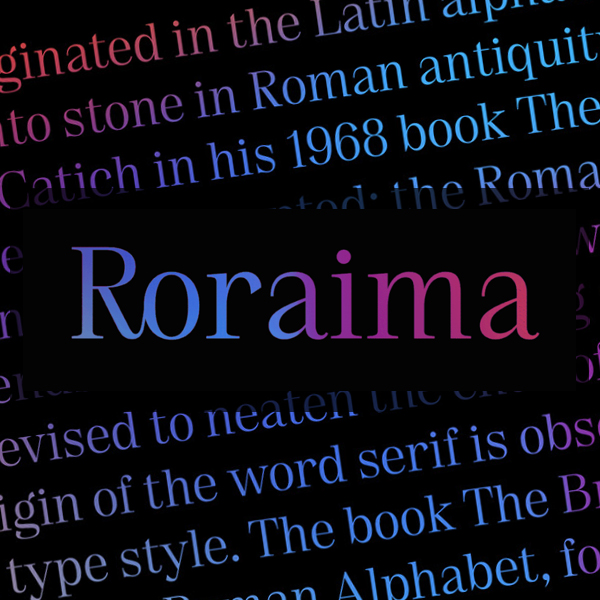
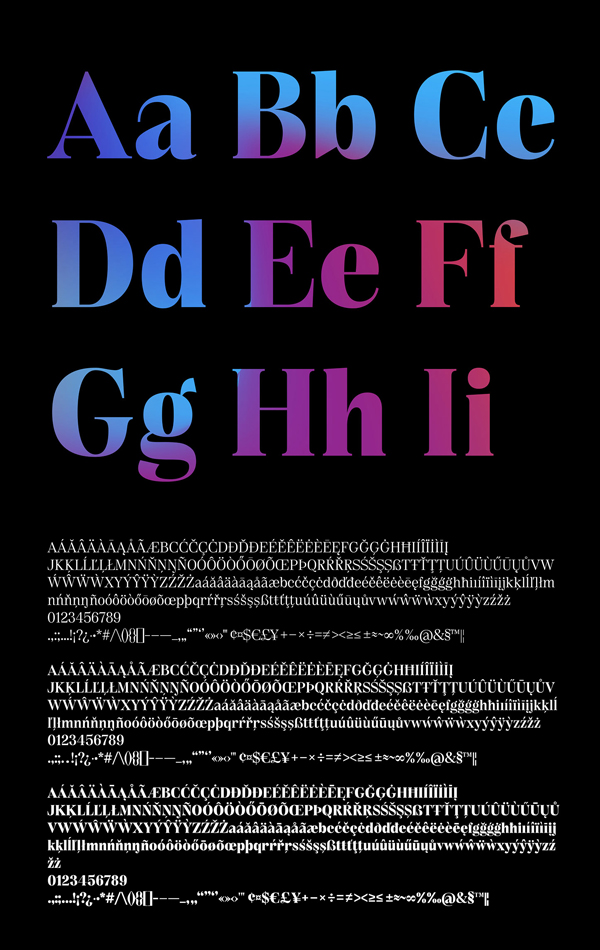
2. Techead Sans Serif Free Font
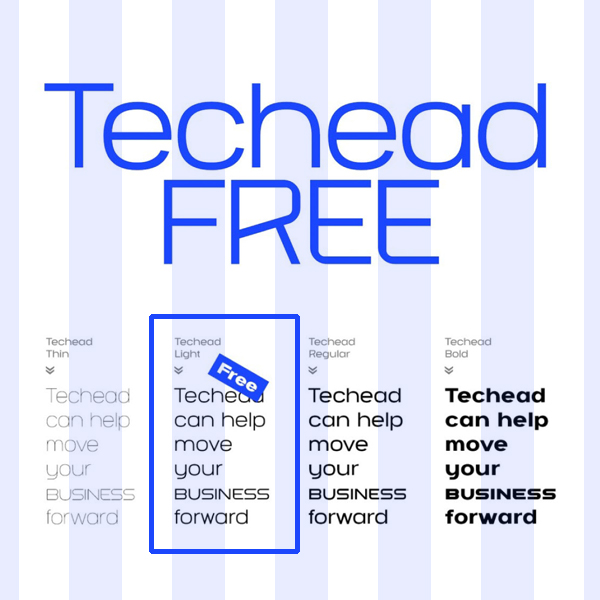
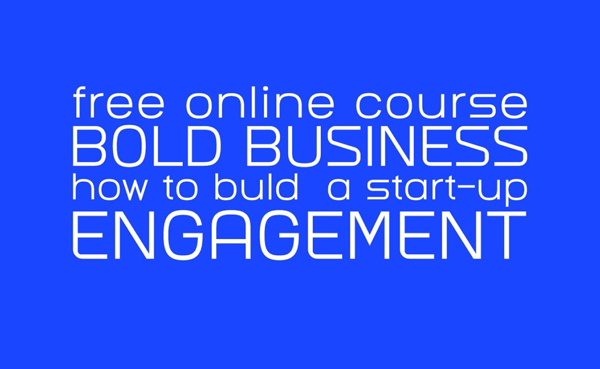
3. Perfect Moment Handwritten Free Font
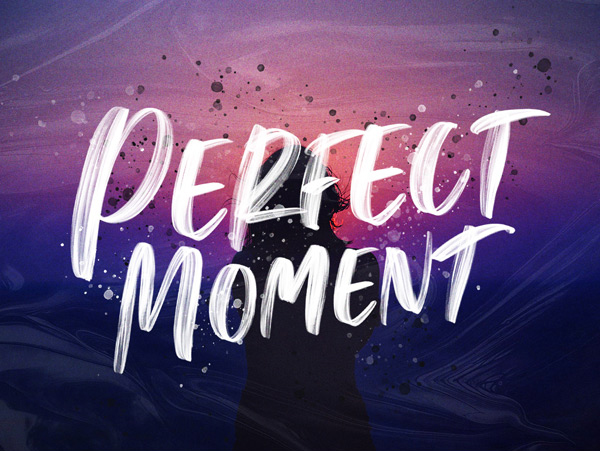
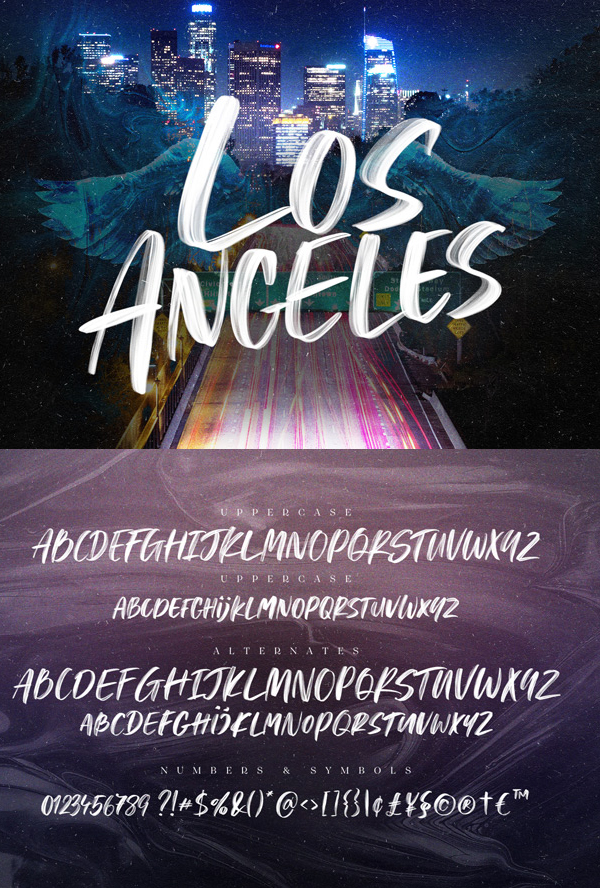
4. PixelCaps Free Font
5. Boombox Free Font
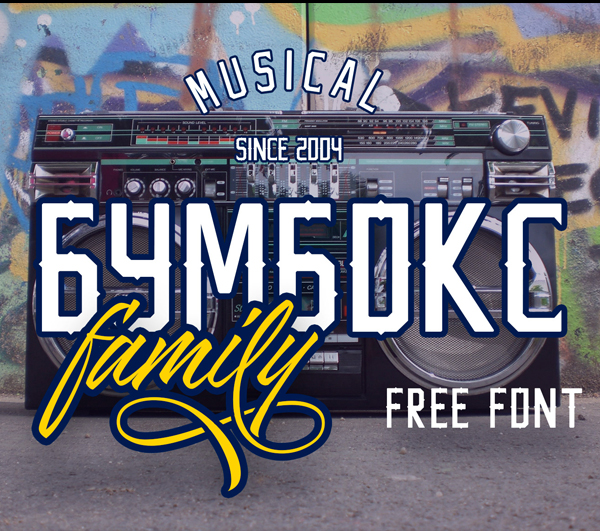
6. Thedus Free Font
7. Polli Sans Free Font
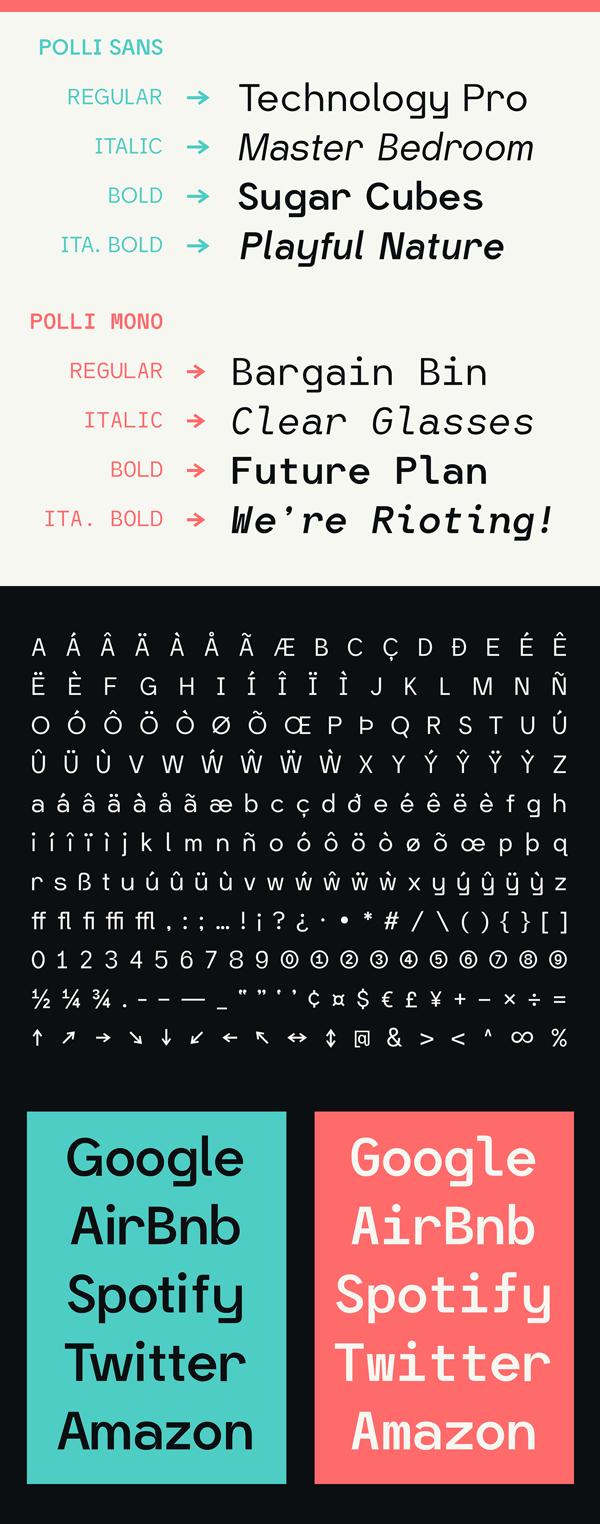
8. Residu SVG Free Font
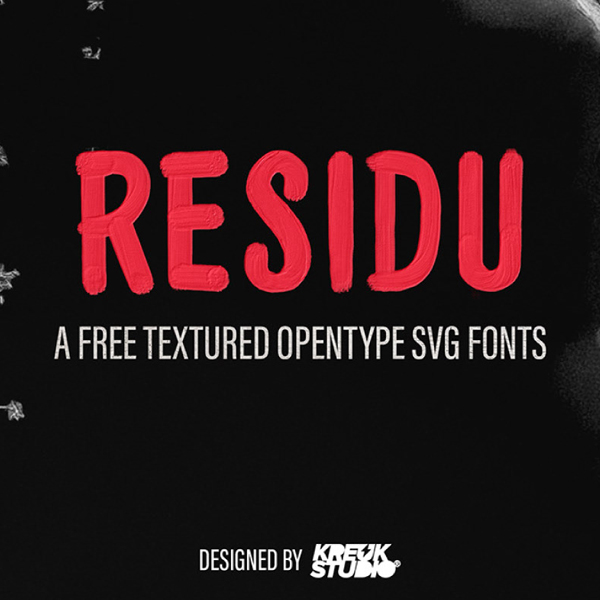
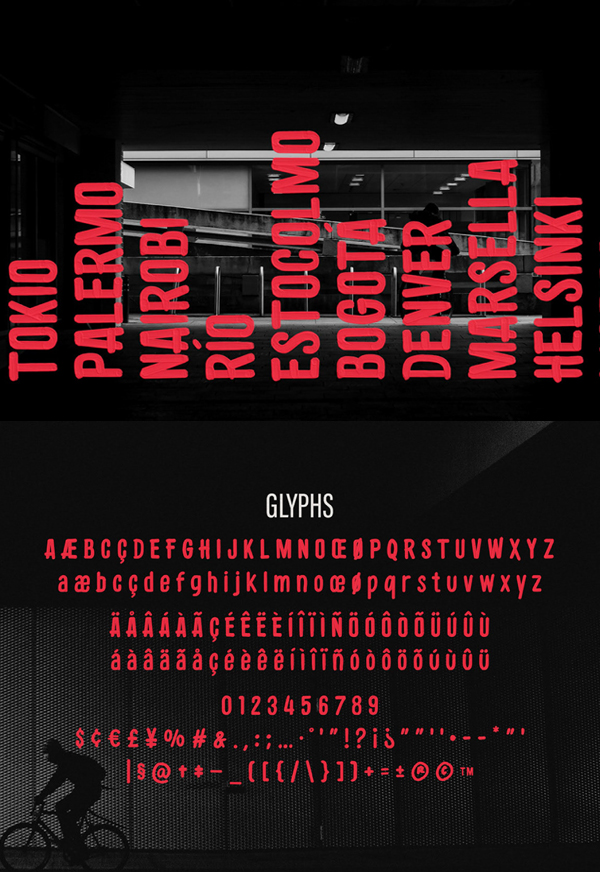
9. Denom Handwritten Free Font
10. Molodost Free Font
11. Leorio Free Font
12. Reckfield Rough Free Font
13. Asthetik Free Font
14. Aviorte Blackletter Free Font
15. Partita Pixel Free Font
16. QVR Sharp Free Font
17. Priborg Sans Free Font
18. Nera Free Font
19. Retro Vibes Vintage Bold Free Font
20. Blackheat Condensed Free Font
21. Nanami Free Font